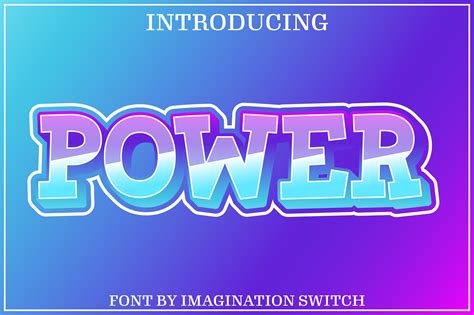
Get Creative with Fonts: Unlock the Power of Words!
The Basics
Fonts play an important role in conveying the message of your website, blog, or presentation. When you use the right font, it can draw the reader's attention to your words and make them more memorable. But when you use the wrong font, it can be distracting and even make the reader lose interest. That's why it's important to choose fonts that support the message you're trying to convey. Fonts come in a variety of styles, from serif and sans-serif to script and display. Each type of font has its own unique characteristics, and it's important to choose a font that fits the tone of your message. For example, a serif font is often used for formal documents, while a script font is perfect for a romantic message.Customize Your Fonts
Once you've chosen the right font for your message, you can customize it to make it unique. You can change the size and spacing of the font to make it more legible, or you can add special effects like drop shadows, outlines, and textures. You can even play around with colors to create a unique look. For example, if you're creating a logo, you can use a bold font and add a subtle drop shadow to give it a 3D effect. Or if you're creating a website, you can use a clean, sans-serif font and add some color to make it pop.Combine Fonts for Maximum Impact
One of the best ways to make your message stand out is to combine different fonts. When you combine fonts, you can create a look that's unique and eye-catching. For example, you can use a bold, serif font for your headline and a light, script font for your body text. Or you can use a decorative font for your logo and a clean, sans-serif font for your website copy. Just be sure to choose fonts that complement each other. The most successful font combinations often have one thing in common: they have a similar feel. For example, if you're using a bold, serif font for your headline, you might want to choose a light, sans-serif font for your body text.An Example
Let's say you're creating a logo for a travel company. You could use a bold, script font for the company name and a light, serif font for the tagline. Then you could add a subtle drop shadow to give it a 3D effect. This would create a unique and eye-catching logo that conveys the message of the company.My Point of View
When it comes to fonts, it's important to choose the right font for the right message. And when you combine fonts, it's important to choose fonts that complement each other. But don't be afraid to have fun with fonts and experiment with different styles and effects. You can use fonts to create a unique look that will make your message stand out.Know Your Rights
Fonts are an important part of any design, and it's important to choose the right font for the right message. With the right font, you can convey your message in a powerful and memorable way. So get creative with fonts and unlock the power of words!Closing Message